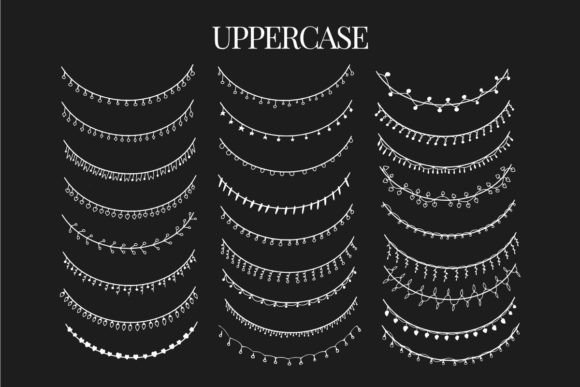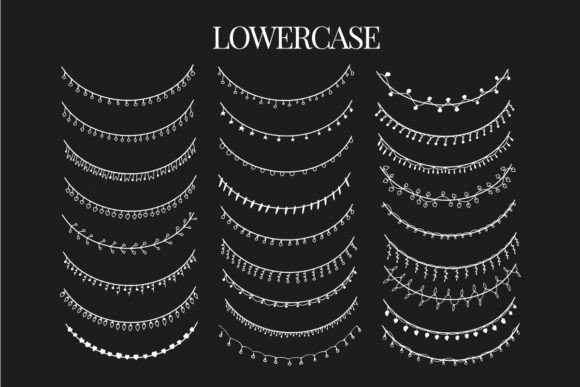
Illuminate Your Designs with Decorative-Lights Font
Are you tired of using the same old fonts in your designs? Look no further! Introducing the Decorative-Lights Font, a beautifully designed set of unique and versatile typographic elements that will add a touch of magic to your next project. In this article, we’ll dive into the world of decorative lights and explore how this font can elevate your designs.
What is Decorative-Lights Font?
The Decorative-Lights Font is a stunning collection of typographic elements that resemble decorative lights. Each letter, number, and symbol is carefully crafted to resemble a miniature light fixture, complete with intricate details and a touch of whimsy. This font is perfect for designers, crafters, and anyone looking to add a dash of personality to their work.
Key Features of Decorative-Lights Font
• Unique and Versatile: The Decorative-Lights Font is a one-of-a-kind collection of typographic elements that can be used in a variety of design projects, from party invitations to branding materials.
• Intricate Details: Each character in the font is meticulously designed with intricate details, making it perfect for designs that require a high level of sophistication.
• Wide Range of Uses: The Decorative-Lights Font can be used for a wide range of projects, including but not limited to:
• Party invitations and decorations
• Branding materials, such as logos and packaging
• Web design and development
• Crafting and DIY projects
Benefits of Using Decorative-Lights Font
So, why choose the Decorative-Lights Font for your next project? Here are just a few benefits of using this amazing font:
• Adds a Touch of Whimsy: The Decorative-Lights Font adds a playful and whimsical touch to any design, making it perfect for projects that require a bit of personality.
• Stand Out from the Crowd: With its unique and eye-catching design, the Decorative-Lights Font is sure to make your project stand out from the crowd.
Tips and Tricks for Using Decorative-Lights Font
Here are a few tips and tricks for getting the most out of the Decorative-Lights Font:
• Experiment with Different Sizes: The Decorative-Lights Font looks great in a variety of sizes, from small and delicate to large and bold.
• Mix and Match: Try mixing and matching different characters and symbols to create a unique and eye-catching design.
• Use with Other Fonts: The Decorative-Lights Font pairs well with a variety of other fonts, so don’t be afraid to experiment with different combinations.
In conclusion, the Decorative-Lights Font is a beautifully designed set of unique and versatile typographic elements that are sure to add a touch of magic to your next project. With its intricate details, wide range of uses, and ease of use, this font is perfect for designers, crafters, and anyone looking to add a dash of personality to their work. So why wait? Download the Decorative-Lights Font today and start illuminating your designs!